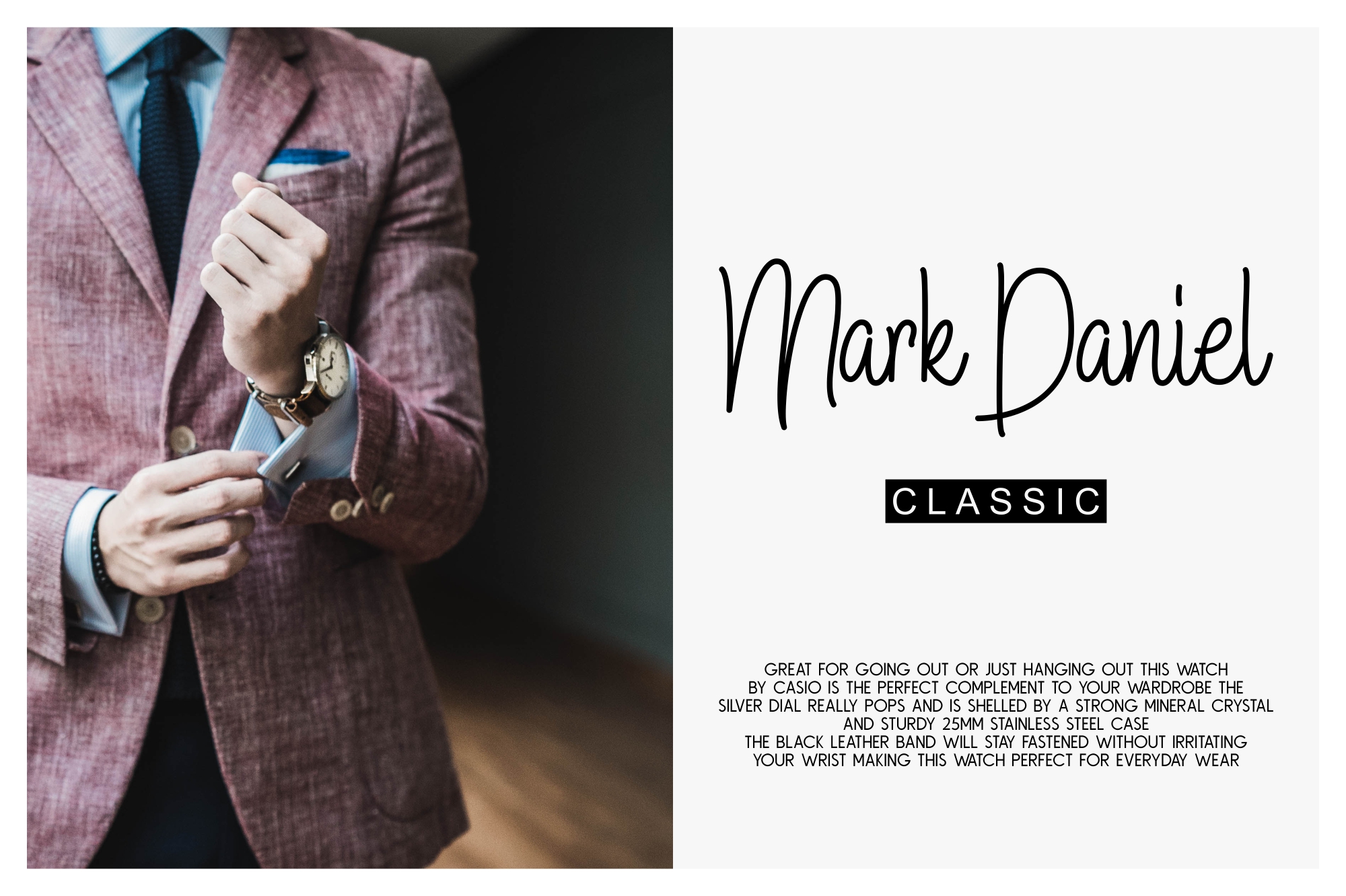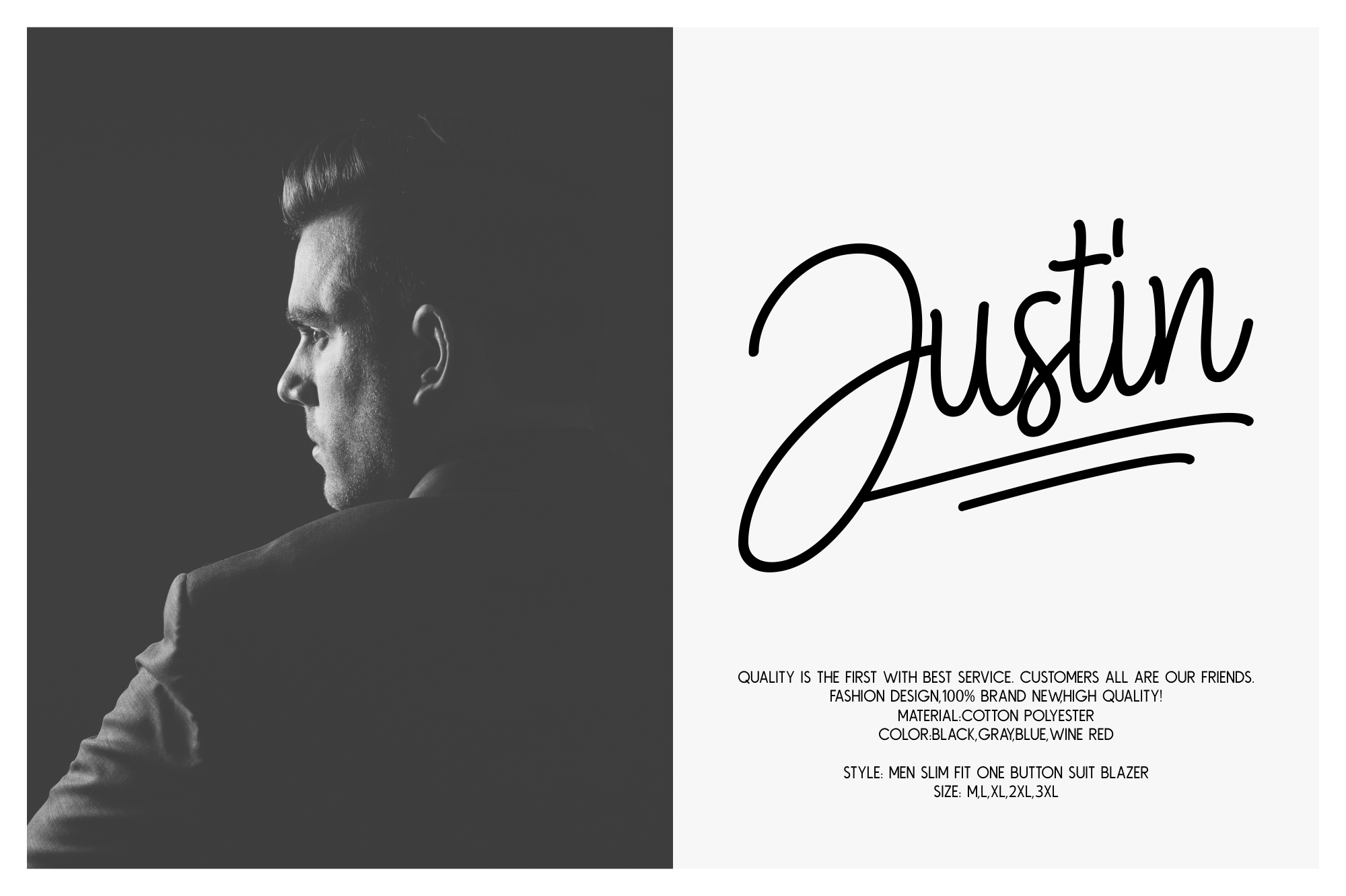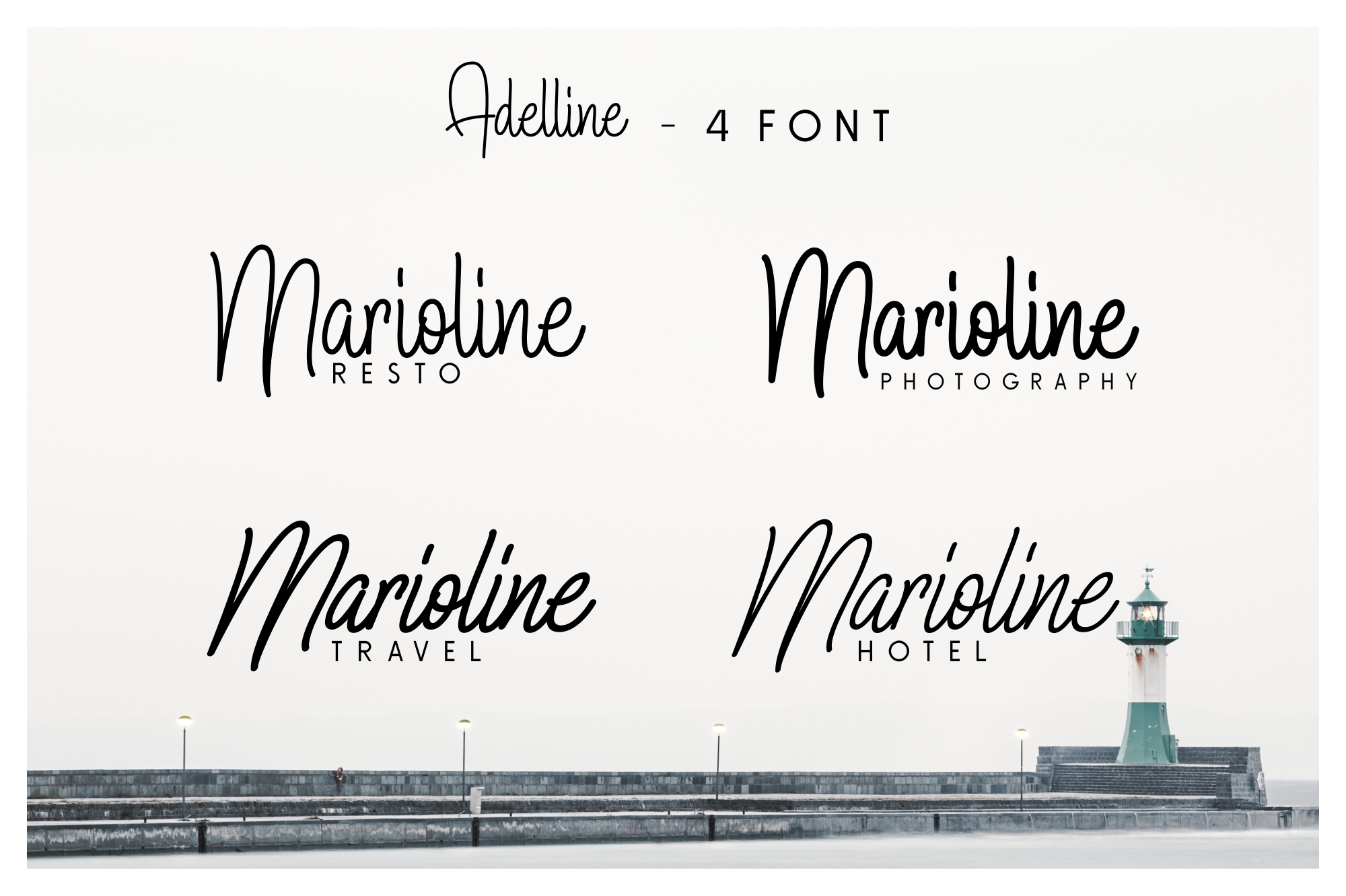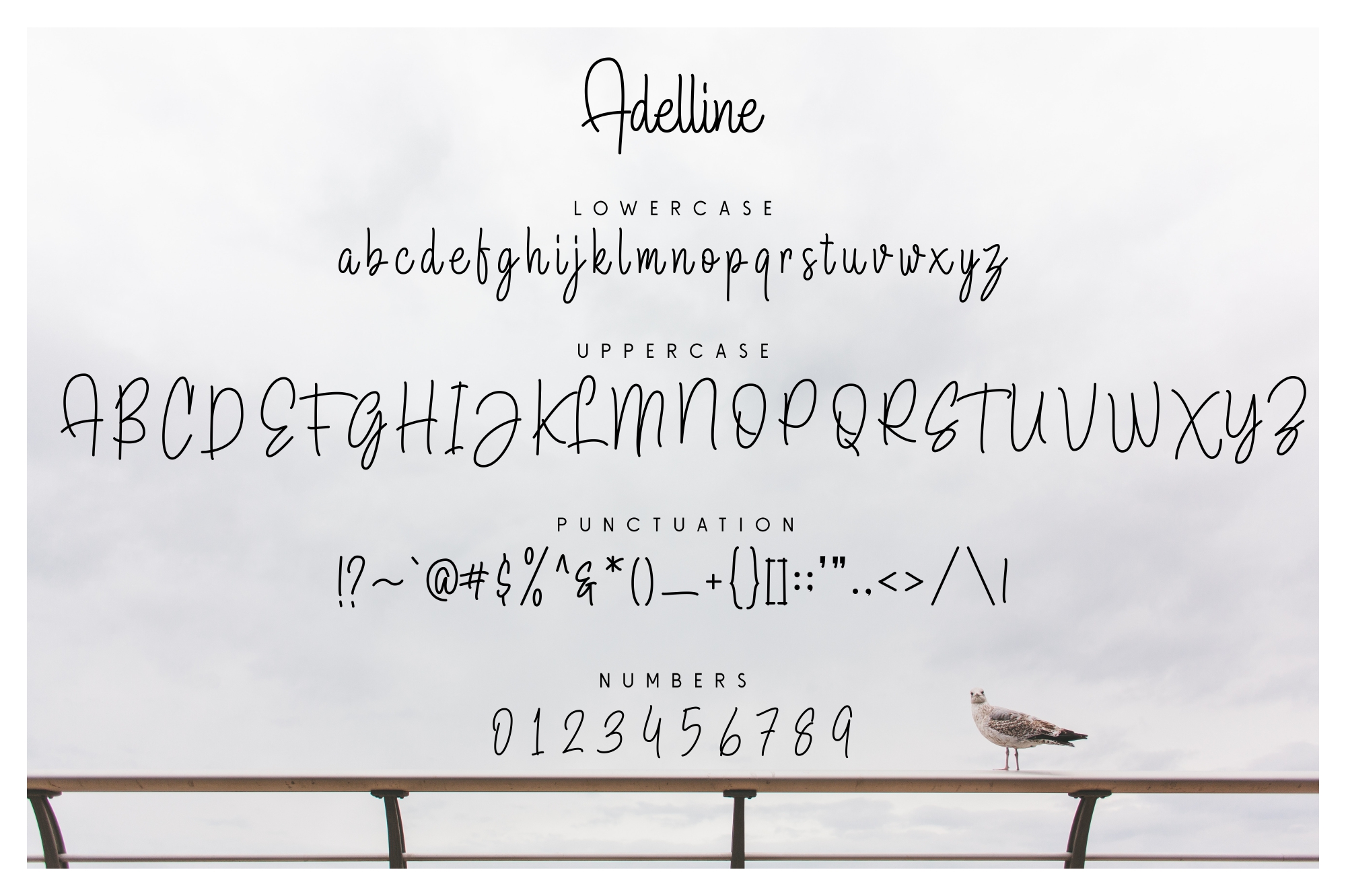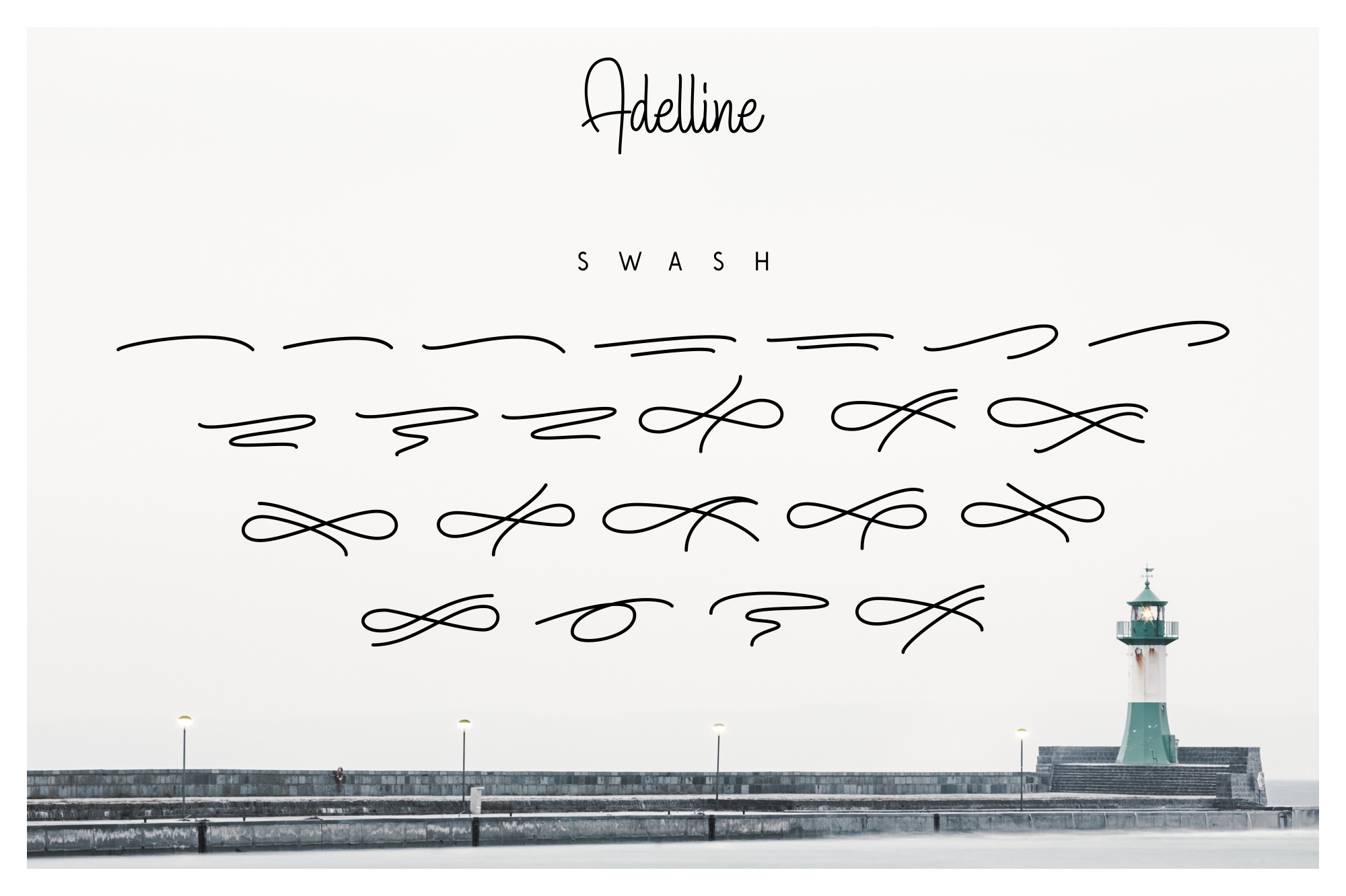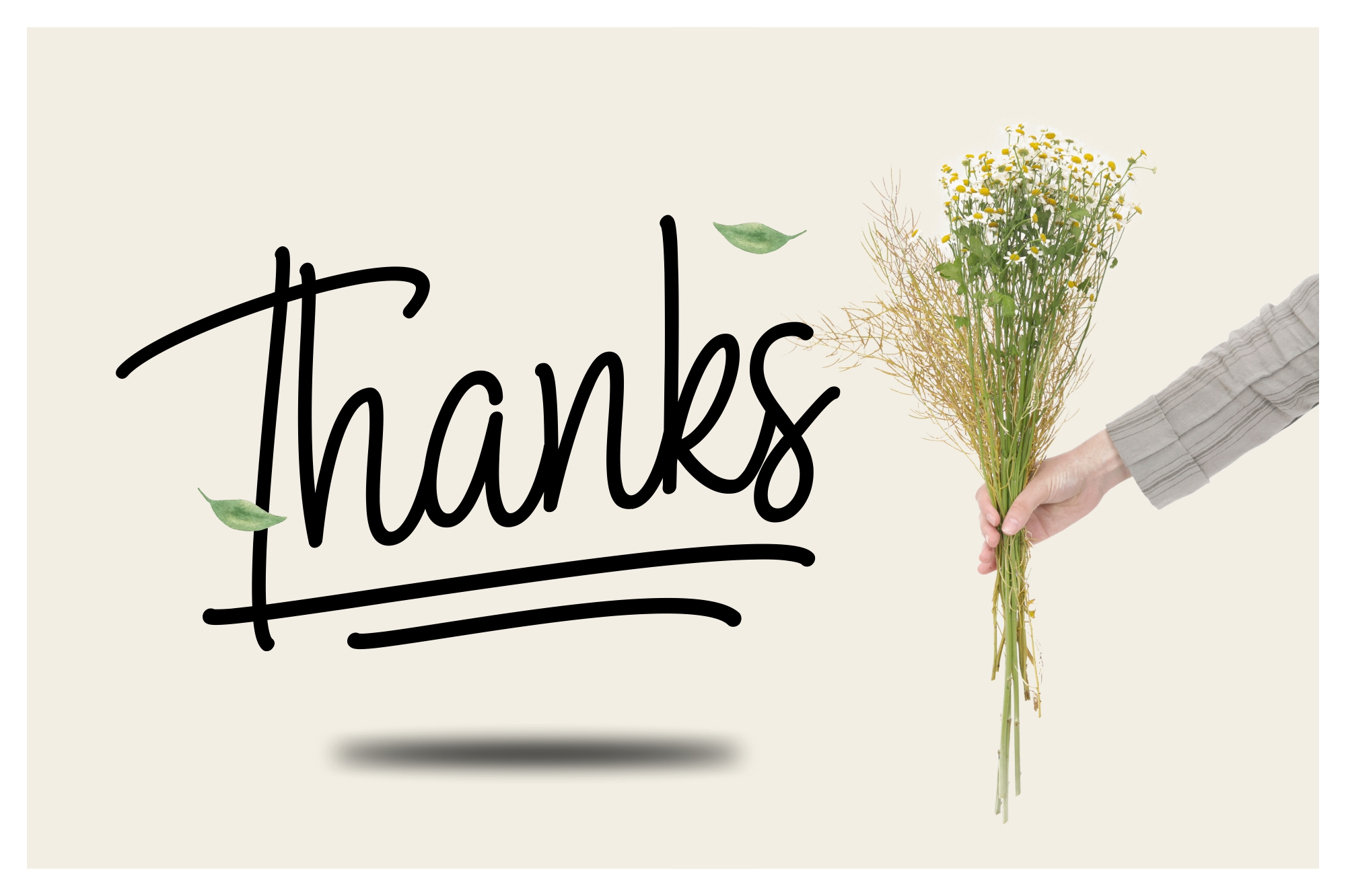
Introducing Adelline Font: The Perfect Handwritten Signature Font for Your Design Needs
Are you a designer or crafter looking for a unique and elegant font to elevate your display designs? Look no further than Adelline Font, a beautiful handwritten signature font that is sure to impress. With its casual handwritten look and extensive features, Adelline is the perfect fit for a wide range of design projects.
What is Adelline Font?
Adelline Font is a carefully crafted handwritten signature font that exudes elegance and sophistication. Its casual handwritten look makes it perfect for a variety of display designs, from logos and branding to packaging and advertising. The font comes with a range of alternates and swashes, allowing you to customize your text and create a truly unique look.
Key Features of Adelline Font
- Handwritten Signature Style: Adelline Font features a beautiful handwritten signature style that is perfect for adding a personal touch to your designs.
- Alternates and Swashes: The font comes with a range of alternates and swashes, allowing you to customize your text and create a truly unique look.
- Casual Handwritten Look: Adelline Font has a casual handwritten look that makes it perfect for a wide range of display designs.
- Elegant and Sophisticated: The font exudes elegance and sophistication, making it perfect for high-end designs.
Why Choose Adelline Font?
There are many reasons why Adelline Font is the perfect choice for your design needs. Here are just a few:
- Unique and Eye-Catching: Adelline Font is a unique and eye-catching font that is sure to grab attention.
- Versatile: The font is versatile and can be used for a wide range of design projects, from logos and branding to packaging and advertising.
- Easy to Use: Adelline Font is easy to use and can be easily integrated into your design workflow.
- High-Quality: The font is high-quality and features a clean and crisp design.
How to Use Adelline Font
Using Adelline Font is easy. Here are a few tips to get you started:
- Use it for Logos and Branding: Adelline Font is perfect for logos and branding projects, adding a personal touch to your brand.
- Add it to Your Packaging Design: The font is also great for packaging design, adding a touch of elegance and sophistication to your product packaging.
- Use it for Advertising: Adelline Font is perfect for advertising projects, grabbing attention and adding a unique touch to your ads.
Tips and Tricks for Working with Adelline Font
Here are a few tips and tricks for working with Adelline Font:
- Experiment with Alternates and Swashes: Don’t be afraid to experiment with the font’s alternates and swashes to create a truly unique look.
- Pair it with Other Fonts: Adelline Font pairs well with other fonts, so don’t be afraid to experiment with different font combinations.
- Use it in Combination with Images: The font looks great in combination with images, so consider using it in conjunction with photography or illustrations.
| Font Name | Adelline Font |
| Author | Runsell Graphic |
In conclusion, Adelline Font is a beautiful handwritten signature font that is perfect for a wide range of design projects. With its casual handwritten look, alternates and swashes, and elegant and sophisticated style, Adelline is sure to impress. Whether you’re a designer or crafter, Adelline Font is a great addition to your font collection.